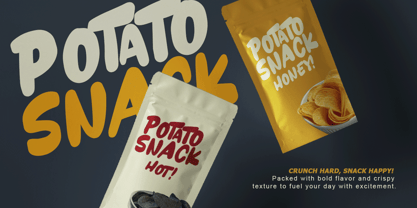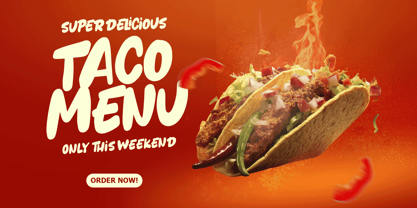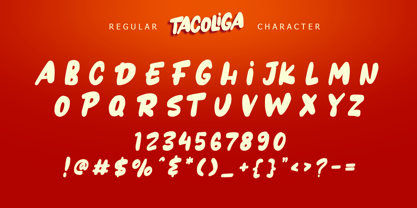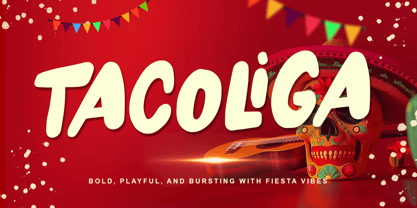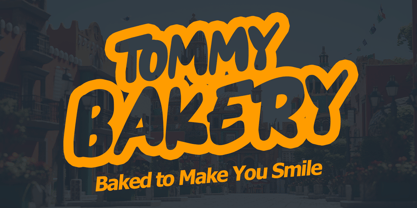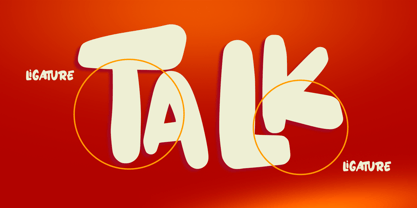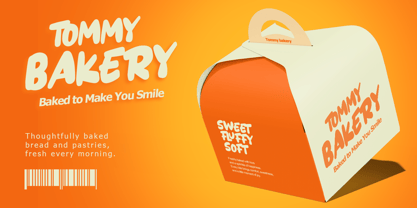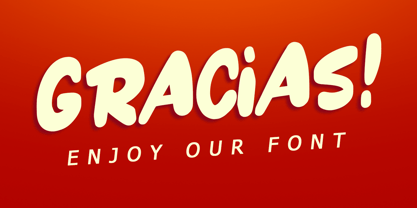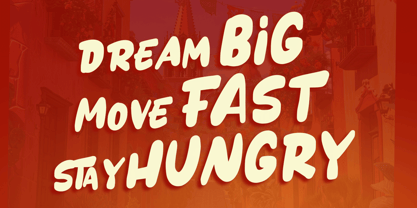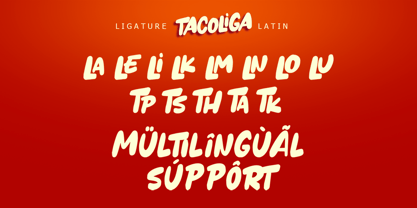
Tacoliga
The Tacoliga Font Family was designed by Thomas Aradea and published by Letterara. Tacoliga contains 2 styles and family package options. More about this family
Introducing Tacoliga, a bold and playful display font created to bring energy, confidence, and joyful expression into your designs. With chunky letterforms, rounded shapes, and a lively visual flow, Tacoliga delivers a strong yet friendly personality that instantly captures attention while remaining clear and readable. Designed for posters, branding, packaging, headlines, social media graphics, and expressive creative projects, Tacoliga transforms ordinary text into eye-catching visual statements filled with warmth, movement, and modern charm—making every message feel bold, fun, and unforgettable.